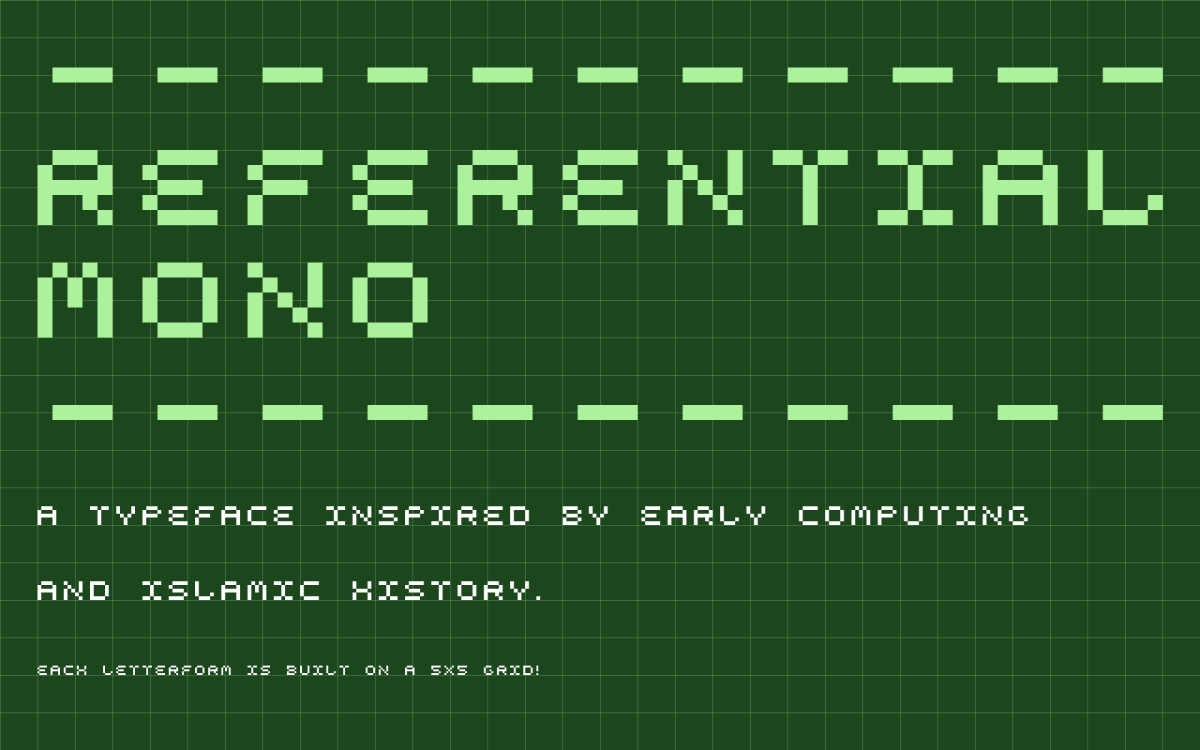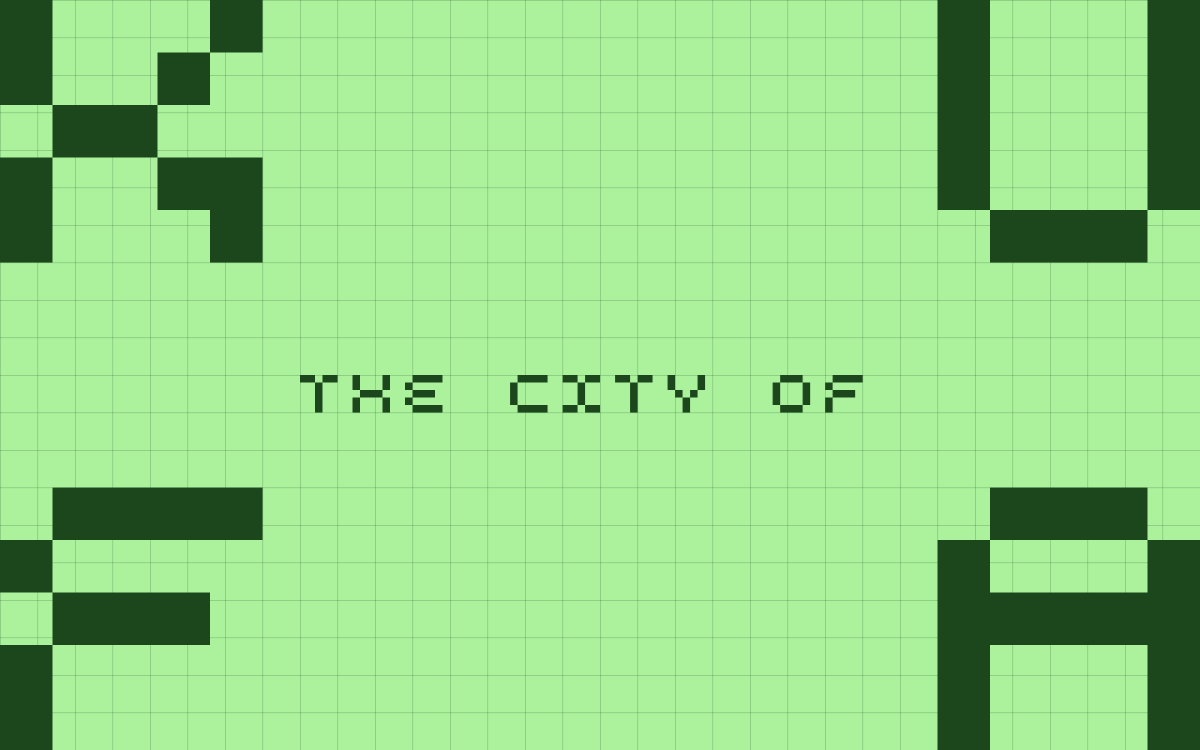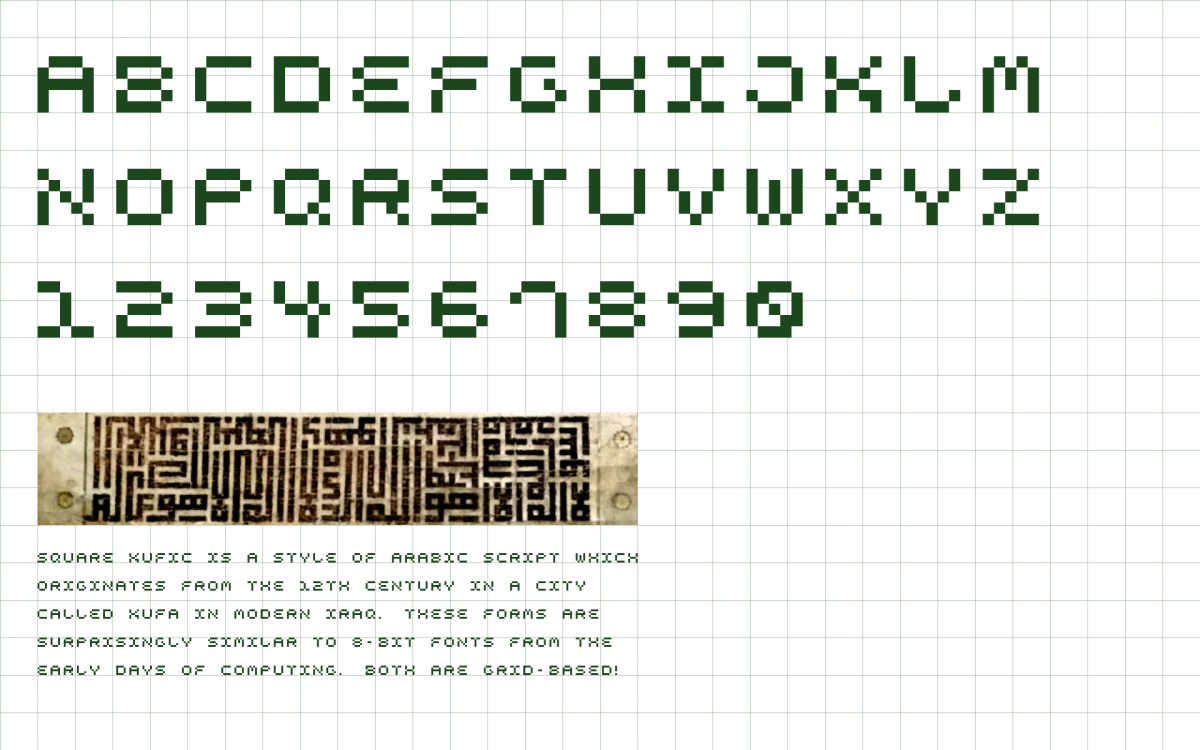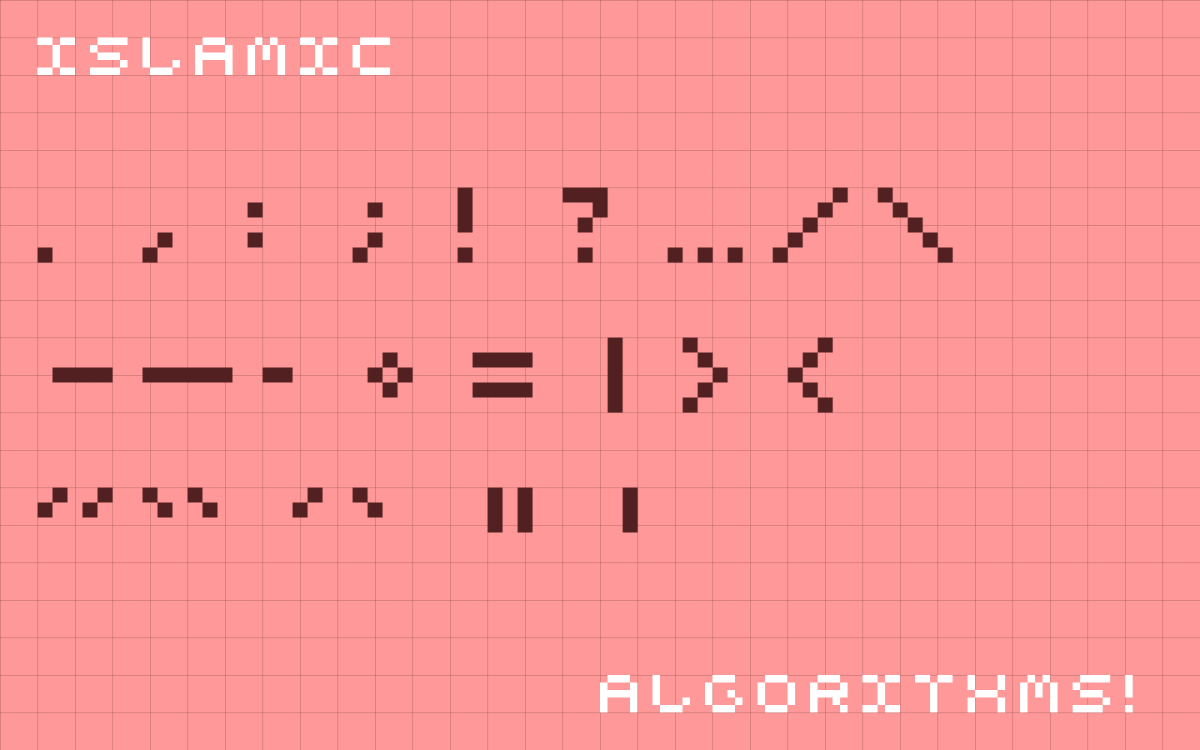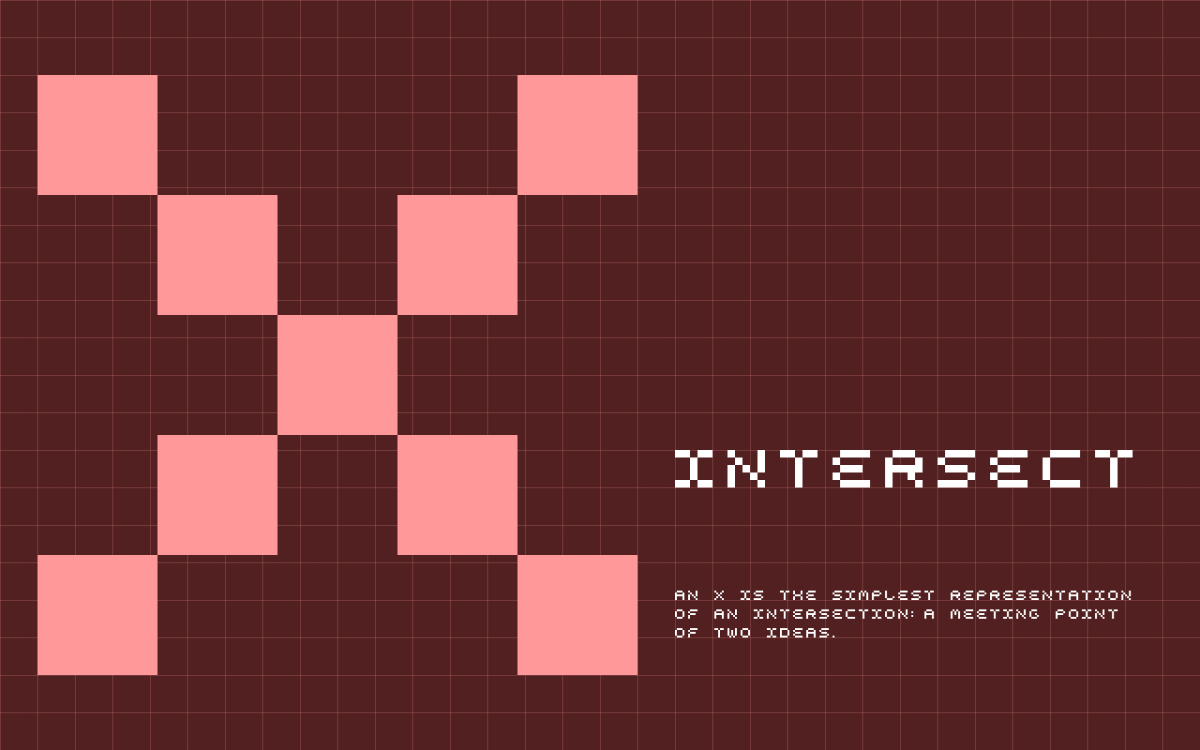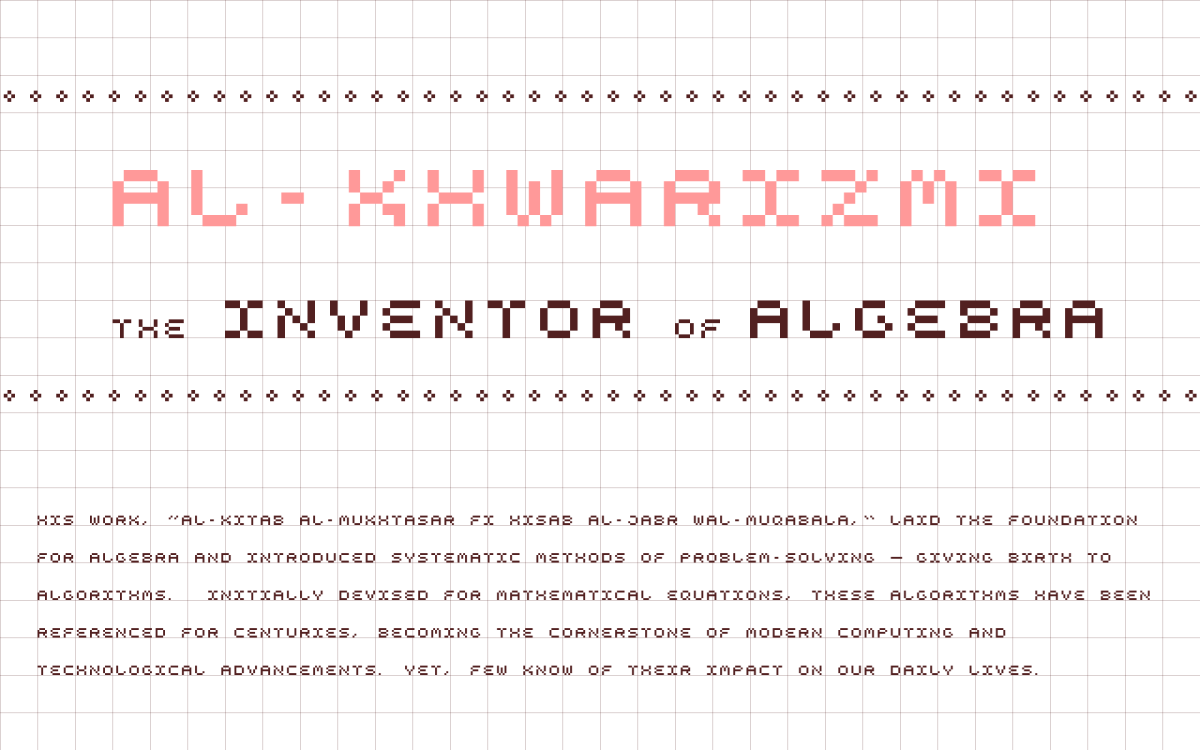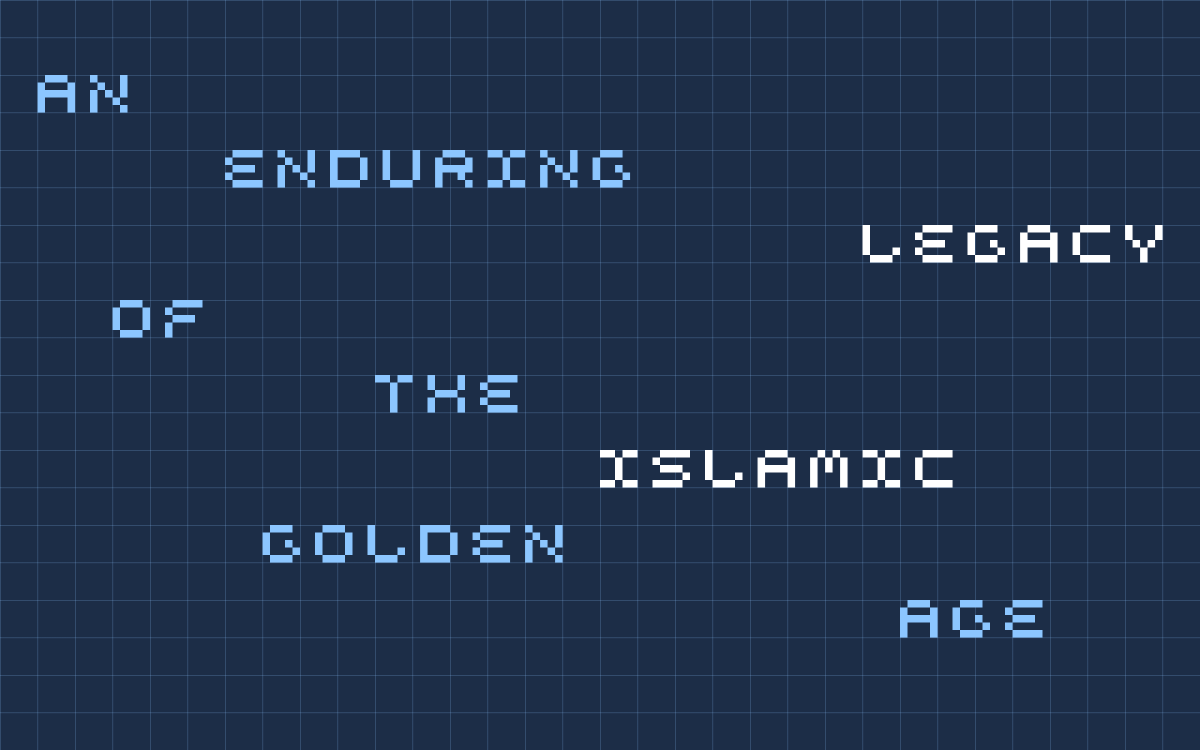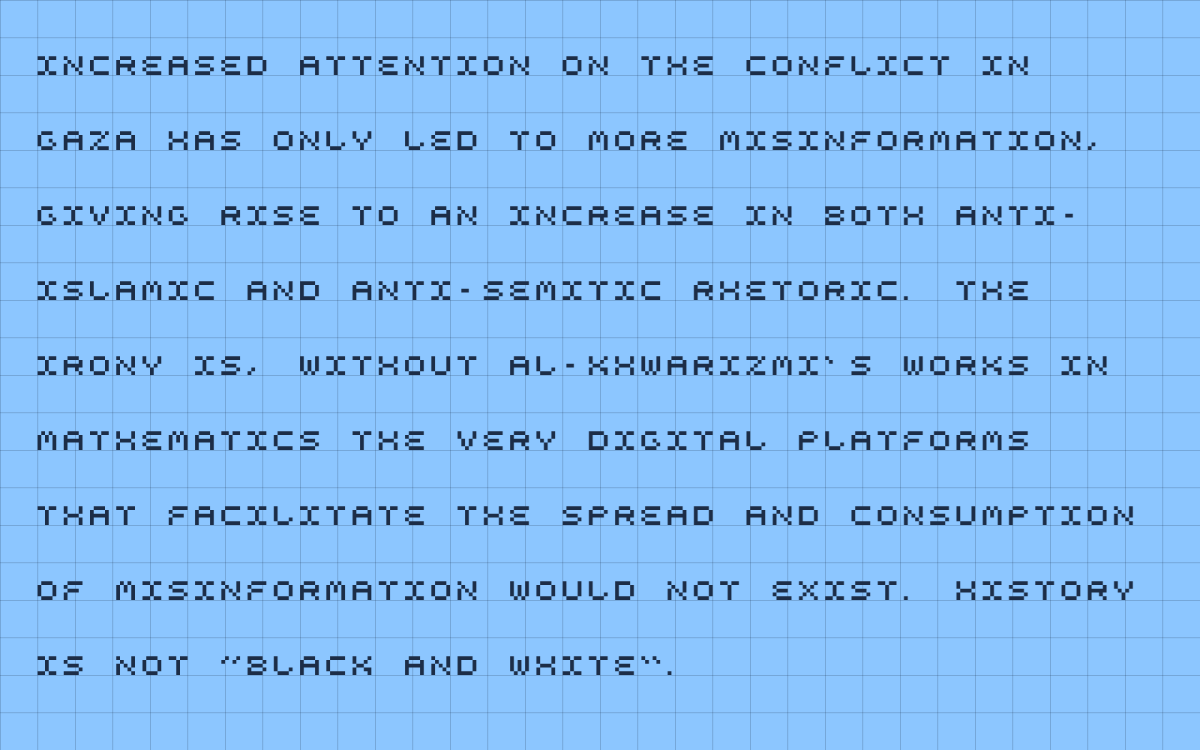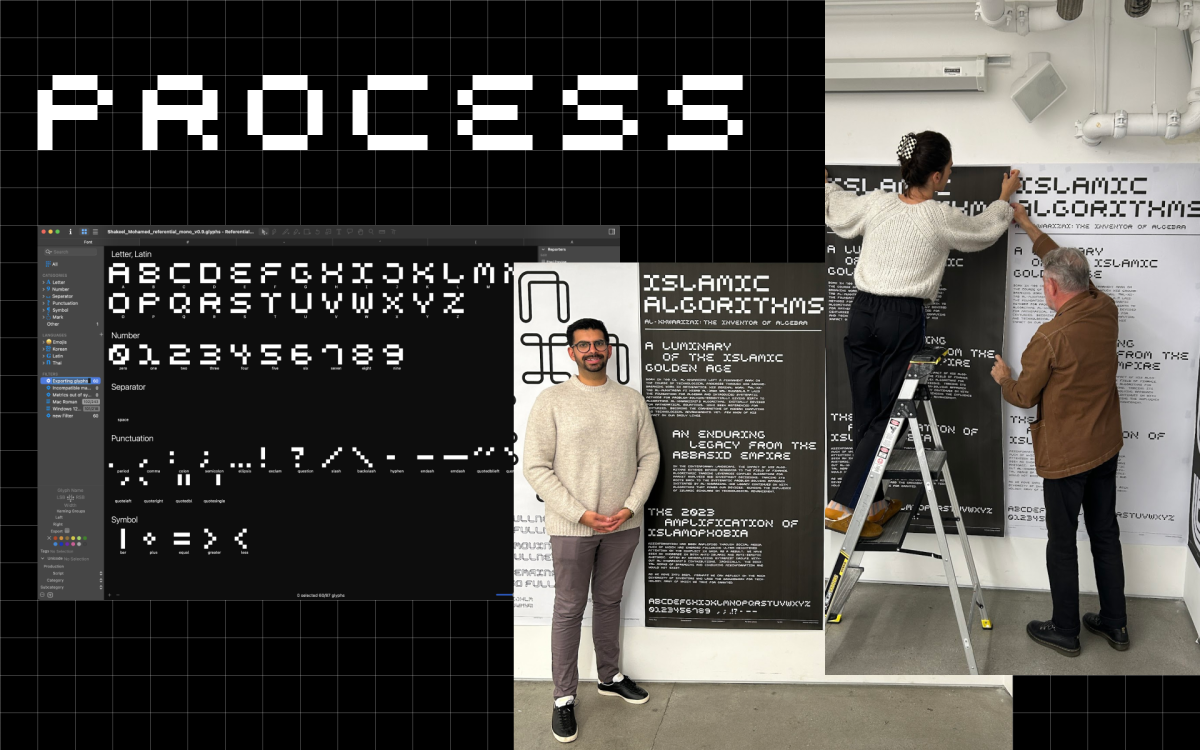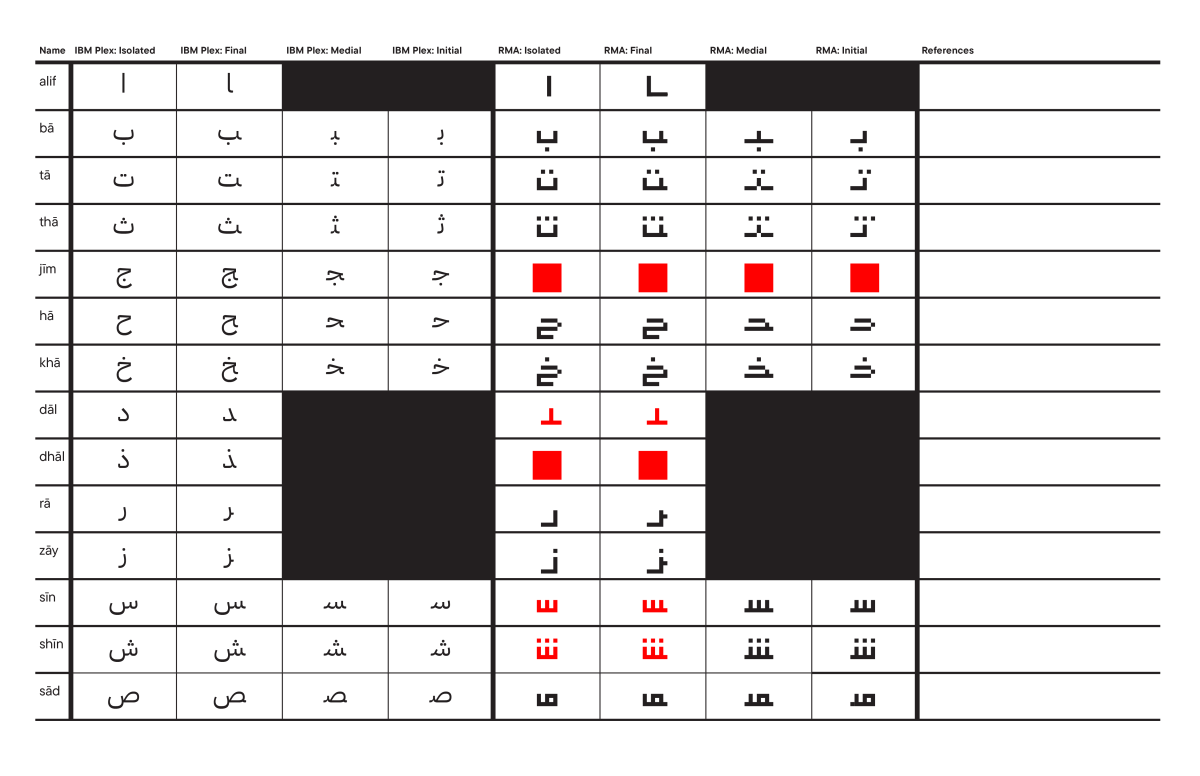
Referential Mono Typeface
When: 2023 (3 weeks) Professors: Simon Johnston, Lavinia Lascaris Course: Graduate Typography 3, ArtCenter Media: type design Tools: Glyphs, Illustrator, InDesign, Figma Referential Mono is built on a 5x5 grid, inspired by early computing and Islamic History. As a developer and Muslim, this project was an opportunity to combine many aspects of my identity in one. HMCT graciously featured some typefaces from our class in their 2023 holiday greetings.
Following advice from Tyler Whisnand during finals week, I changed my subject matter to make this project more personal. As a Muslim and programmer, I embraced both aspects of my identity to present my typeface with a richer concept. Though this was a short assignment, Simon encouraged us to iterate quickly and avoid overly complex designs.
WIP: character charts of Arabic forms compared against IBM Plex Arabic.